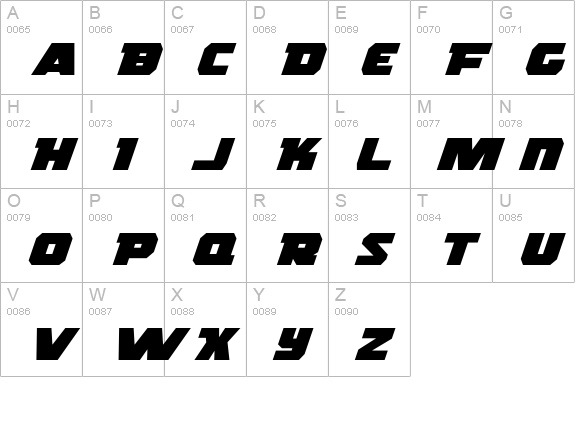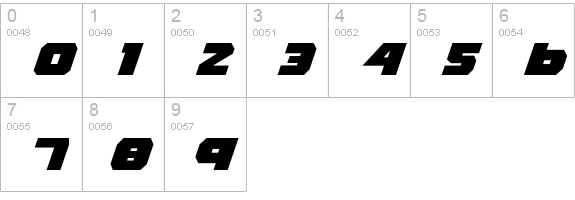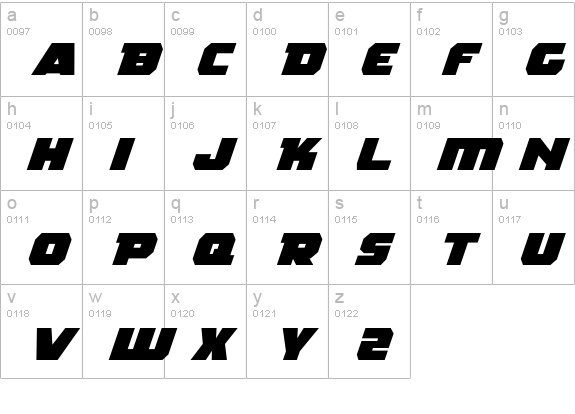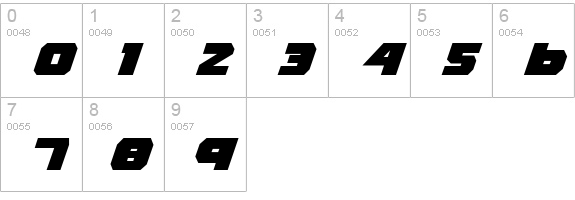
Rogue Hero Expanded Italic is a distinctive, extended-width, italic variant in the Rogue typeface family \xE2\x80\x94 well suited to design and typography projects.
Introducing Rogue Hero Expanded Italic font, a bold and dynamic typeface crafted for those seeking to make a statement with their designs. This font exudes a sense of adventure and spontaneity, perfect for projects that require a touch of daring and rebelliousness. With its exaggerated letterforms and slanted italics, Rogue Hero Expanded Italic font commands attention and adds a sense of drama to any text. Whether you're working on a poster, logo, or branding project, this font is sure to make a lasting impression. Best of all, Rogue Hero Expanded Italic font is available for free download at FontsMarket.com. So go ahead and unleash your creativity with this striking and versatile typeface. Let Rogue Hero Expanded Italic font be the bold statement your designs have been waiting for.